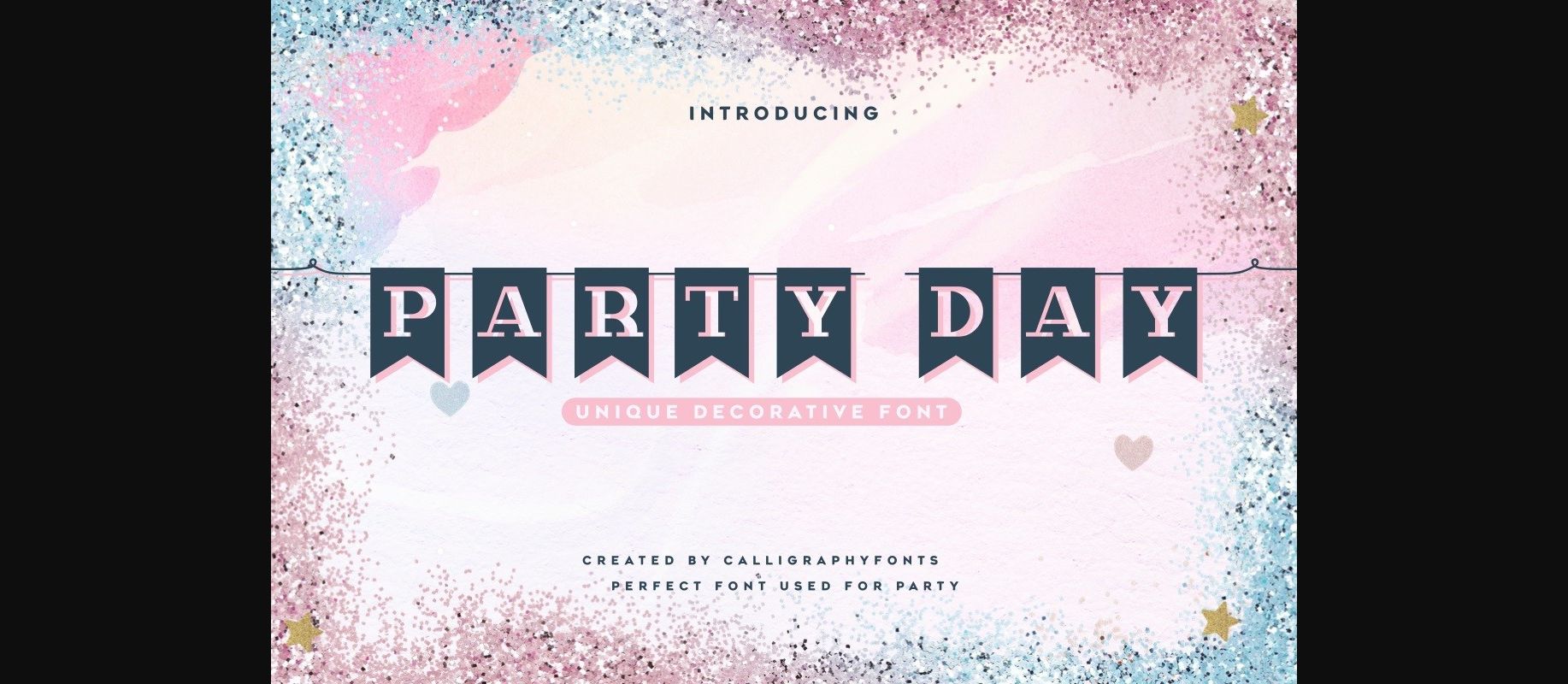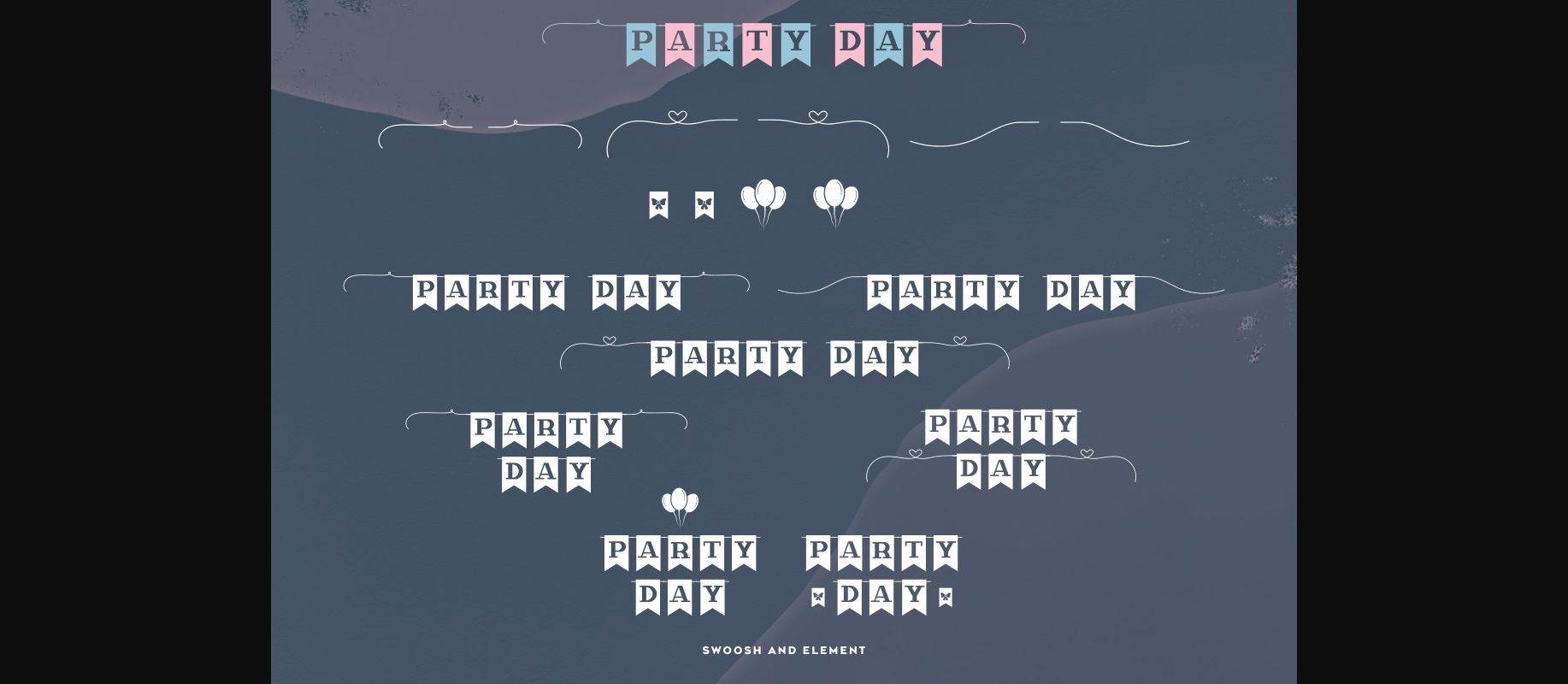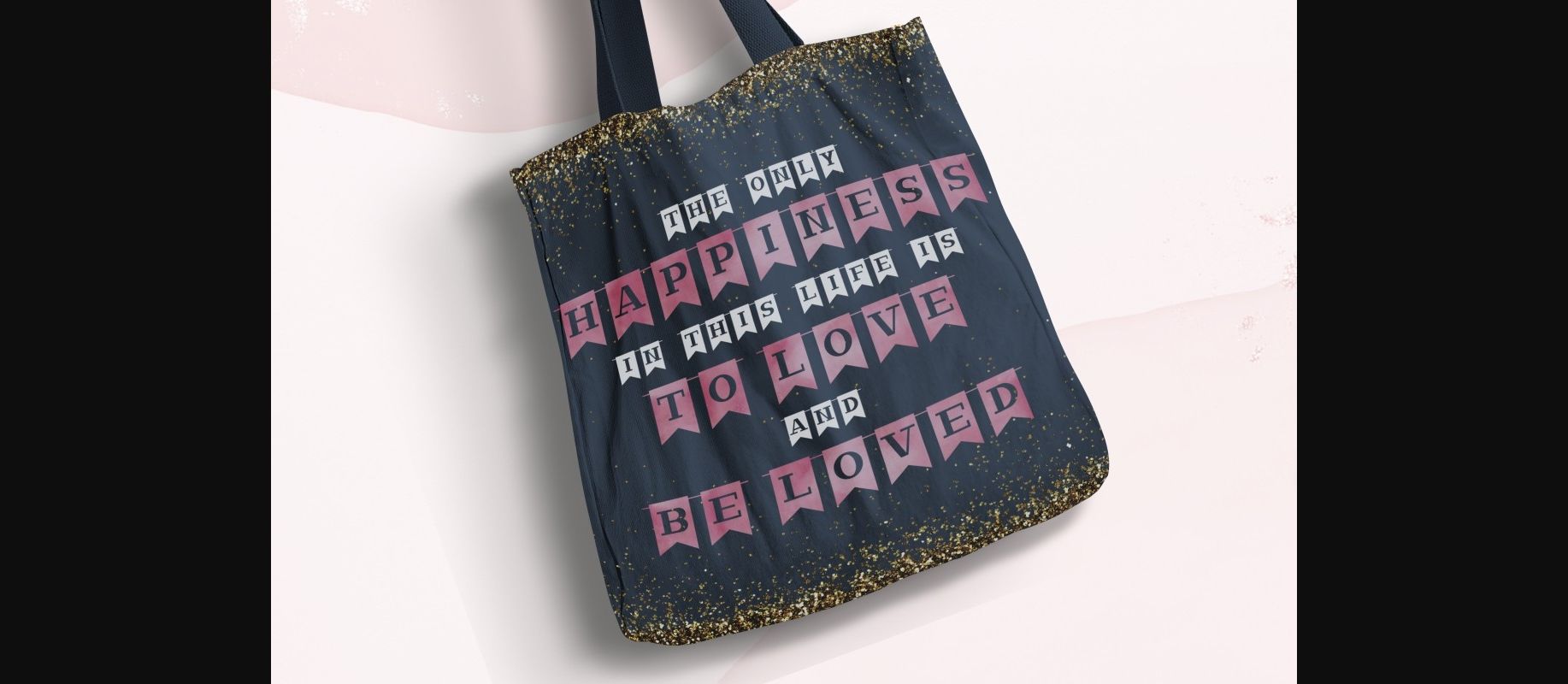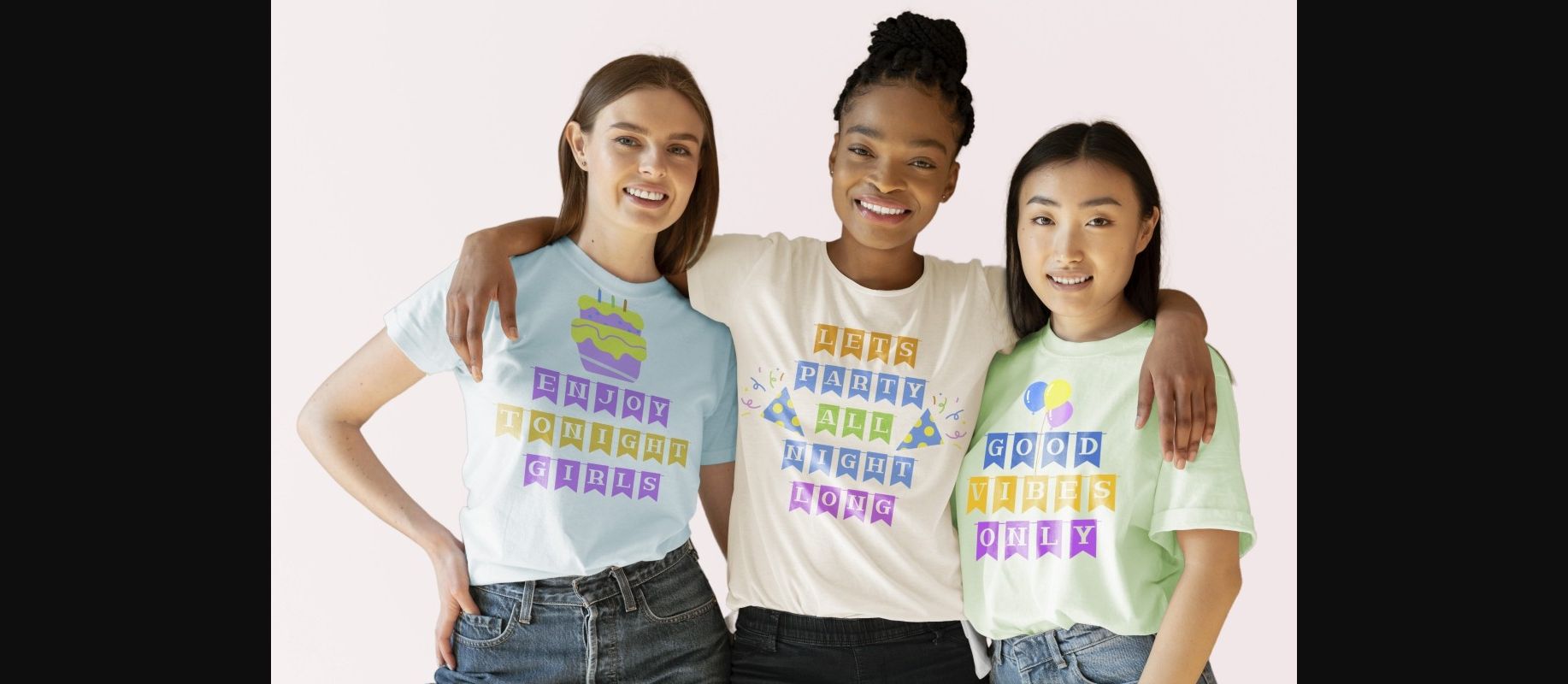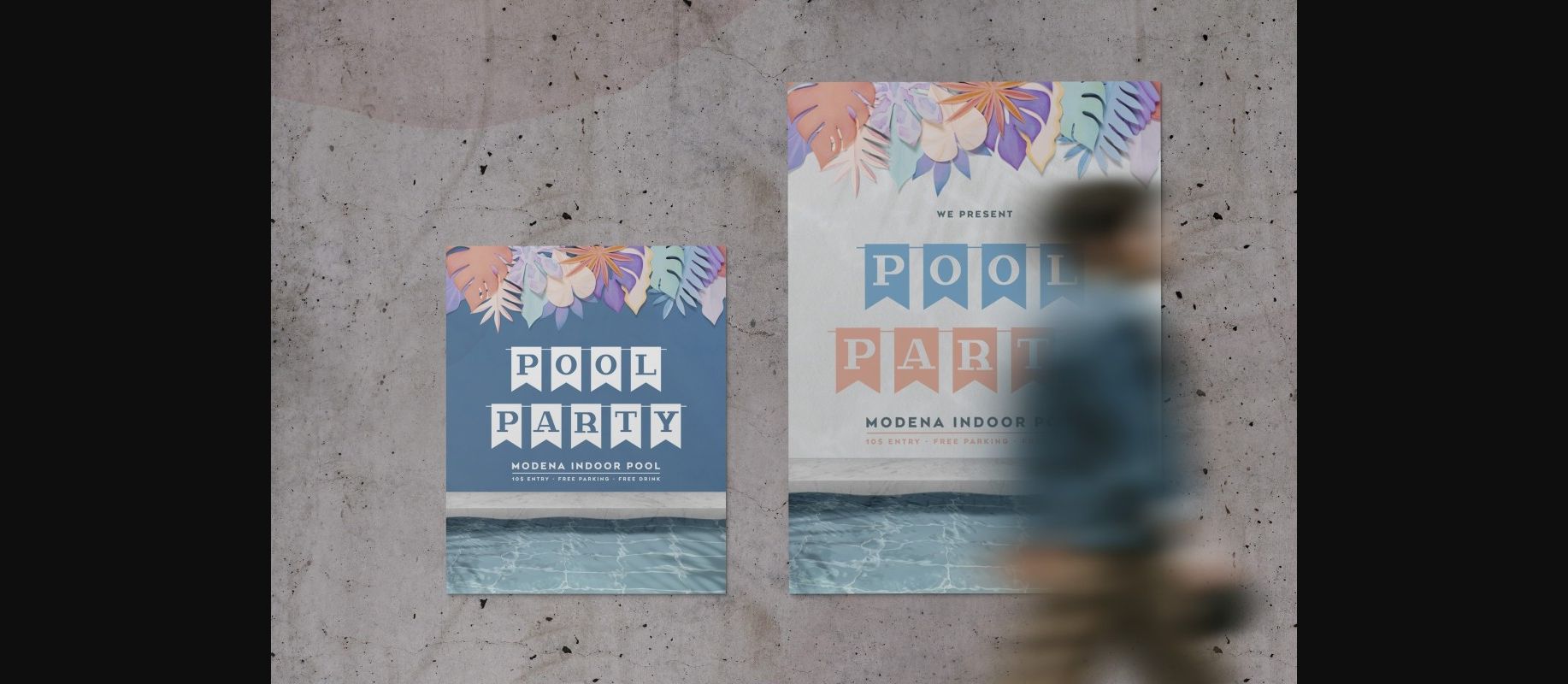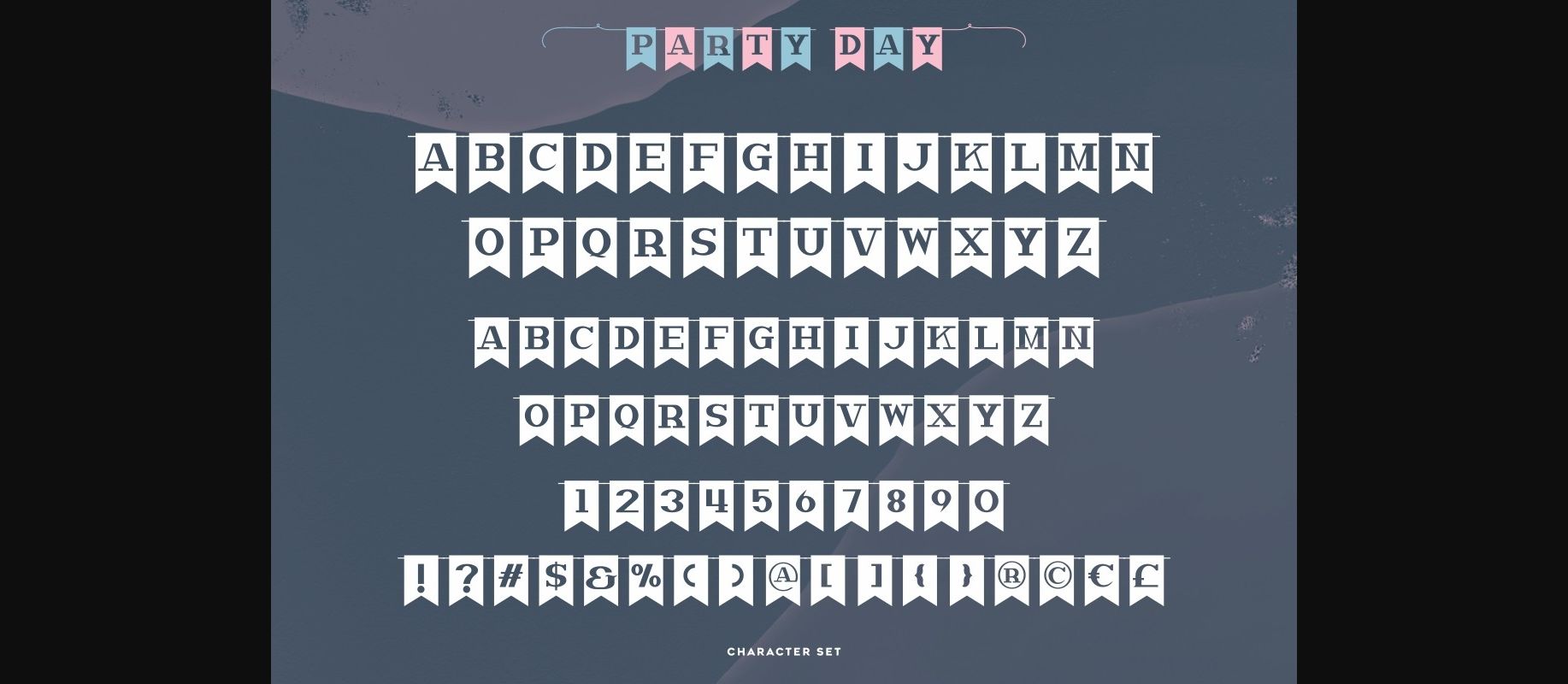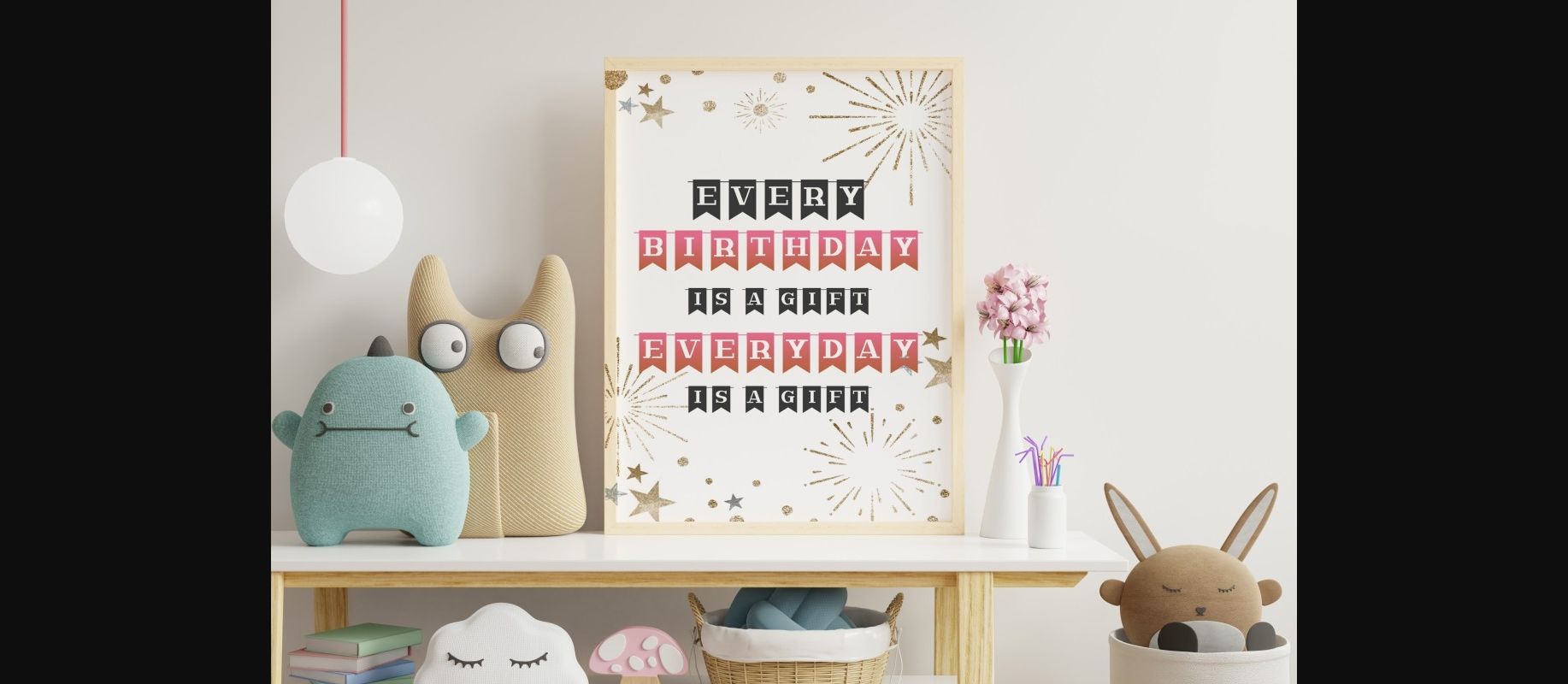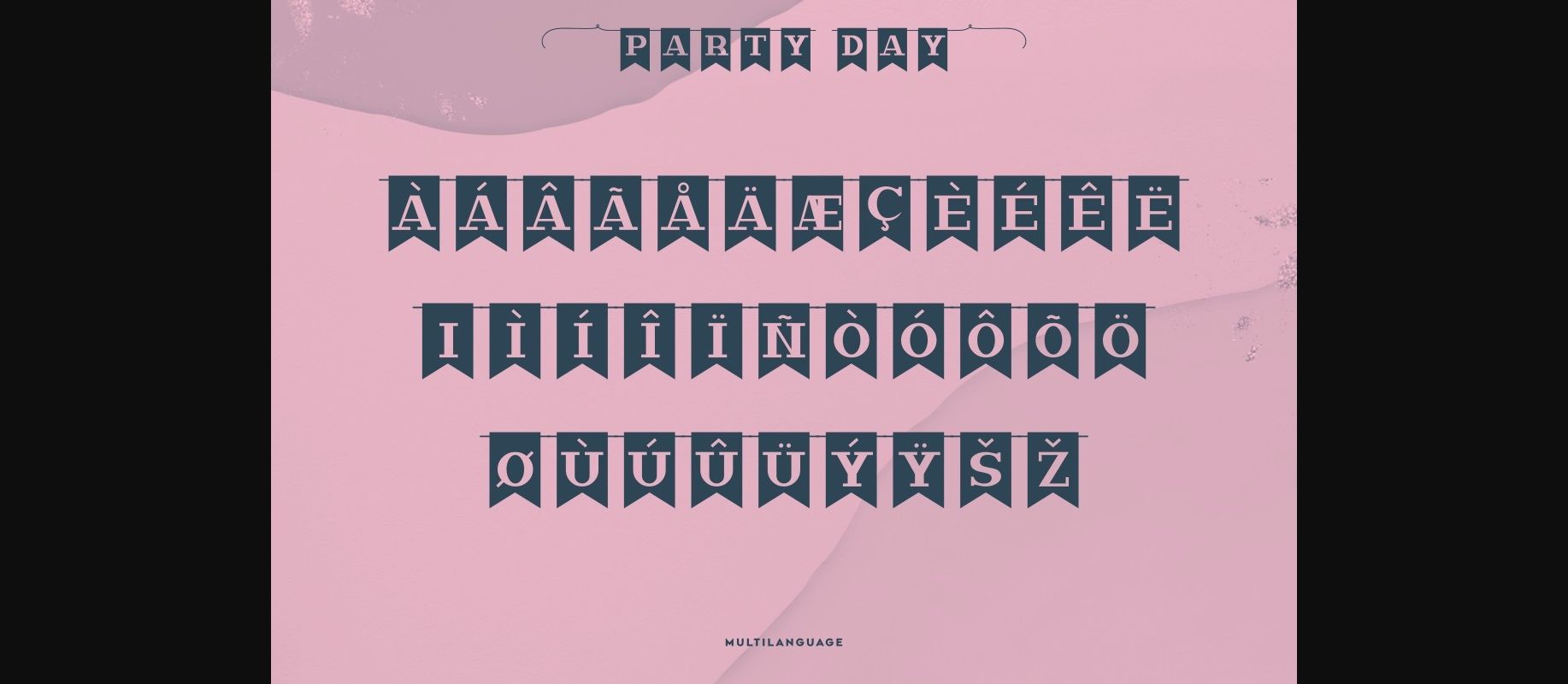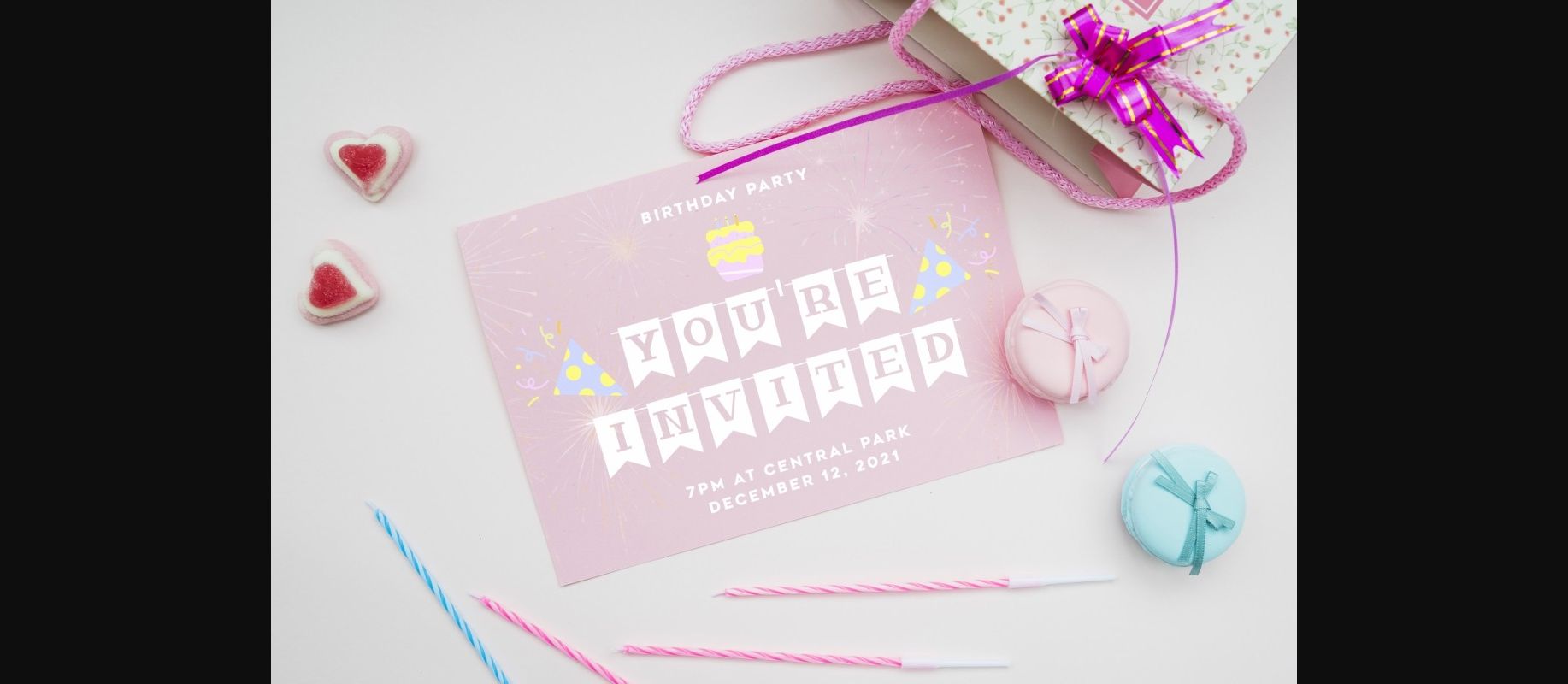
Party Day is a decorative font inspired by the birthday-party theme. It works wonderfully for gifts, anniversary designs, gift packaging, birthday banners, club or community events, children’s designs, and so much more!